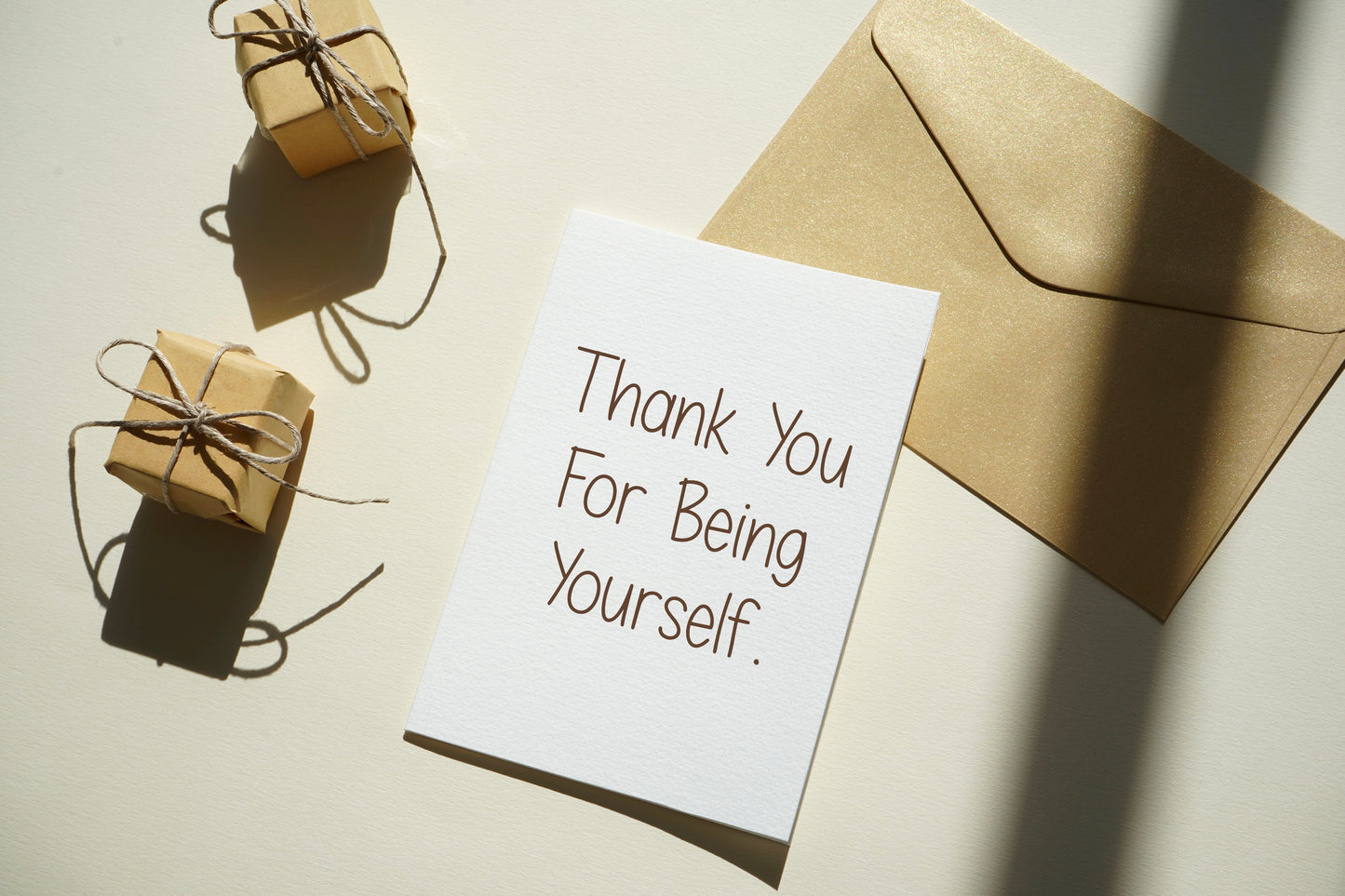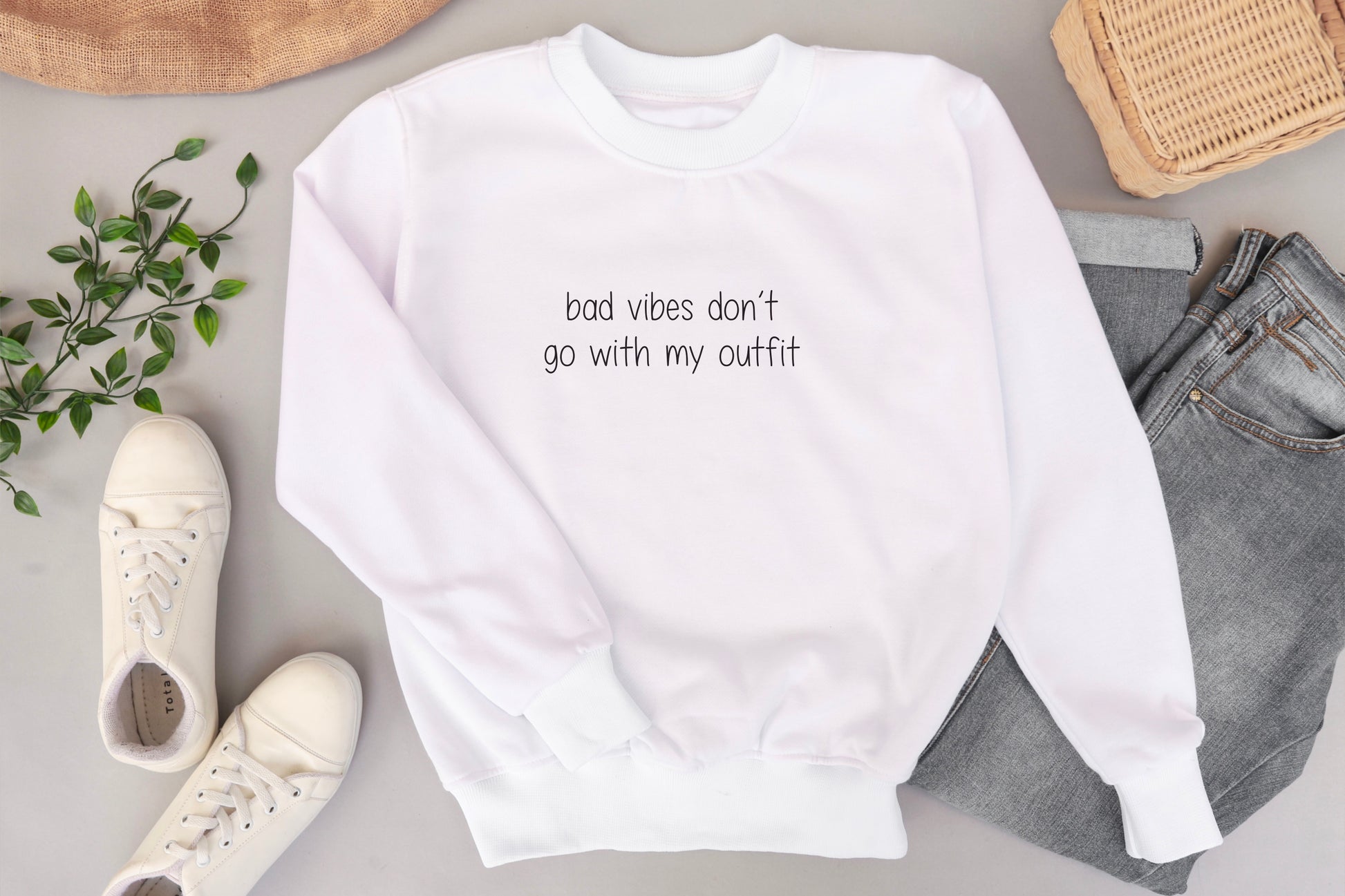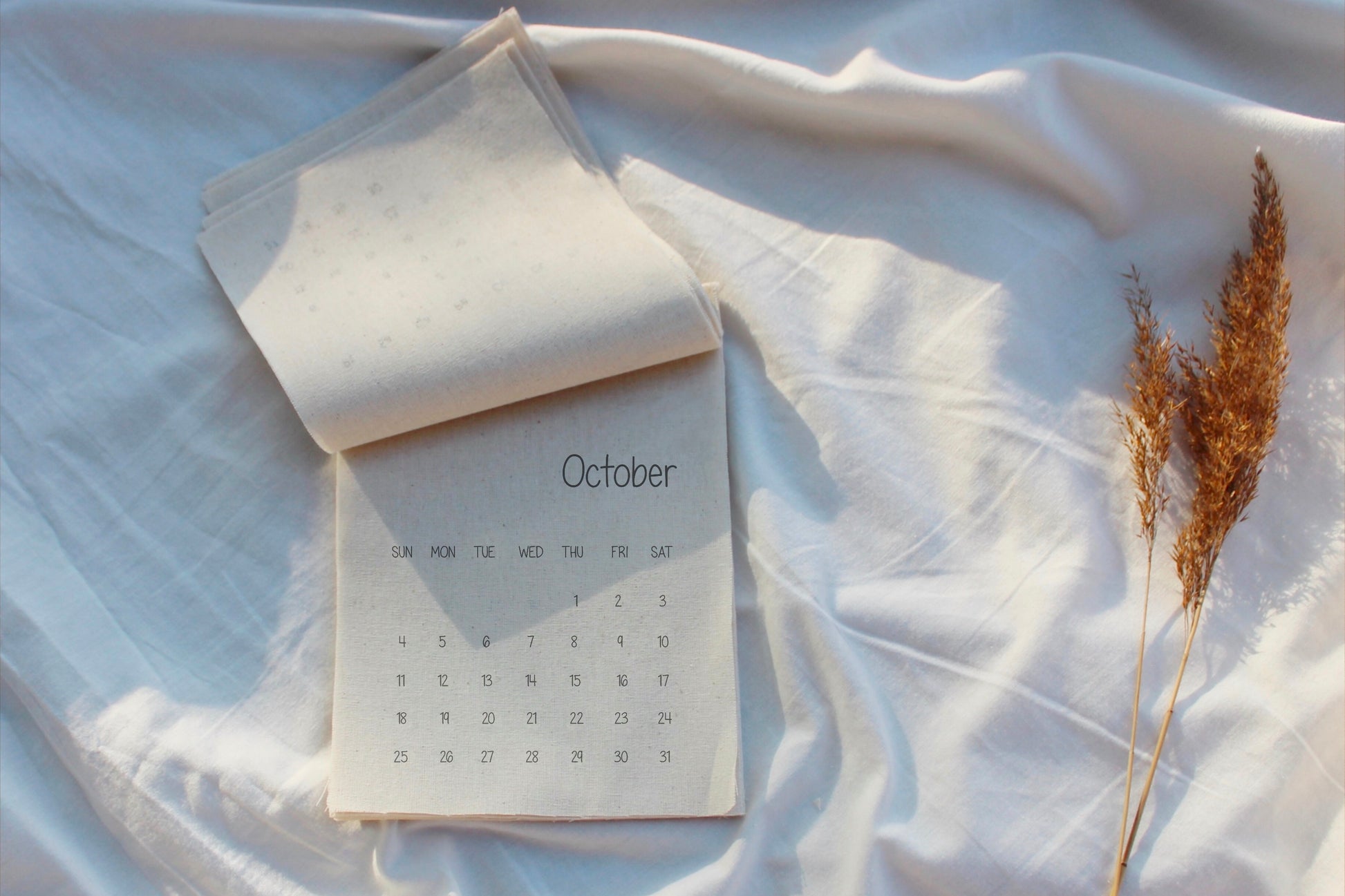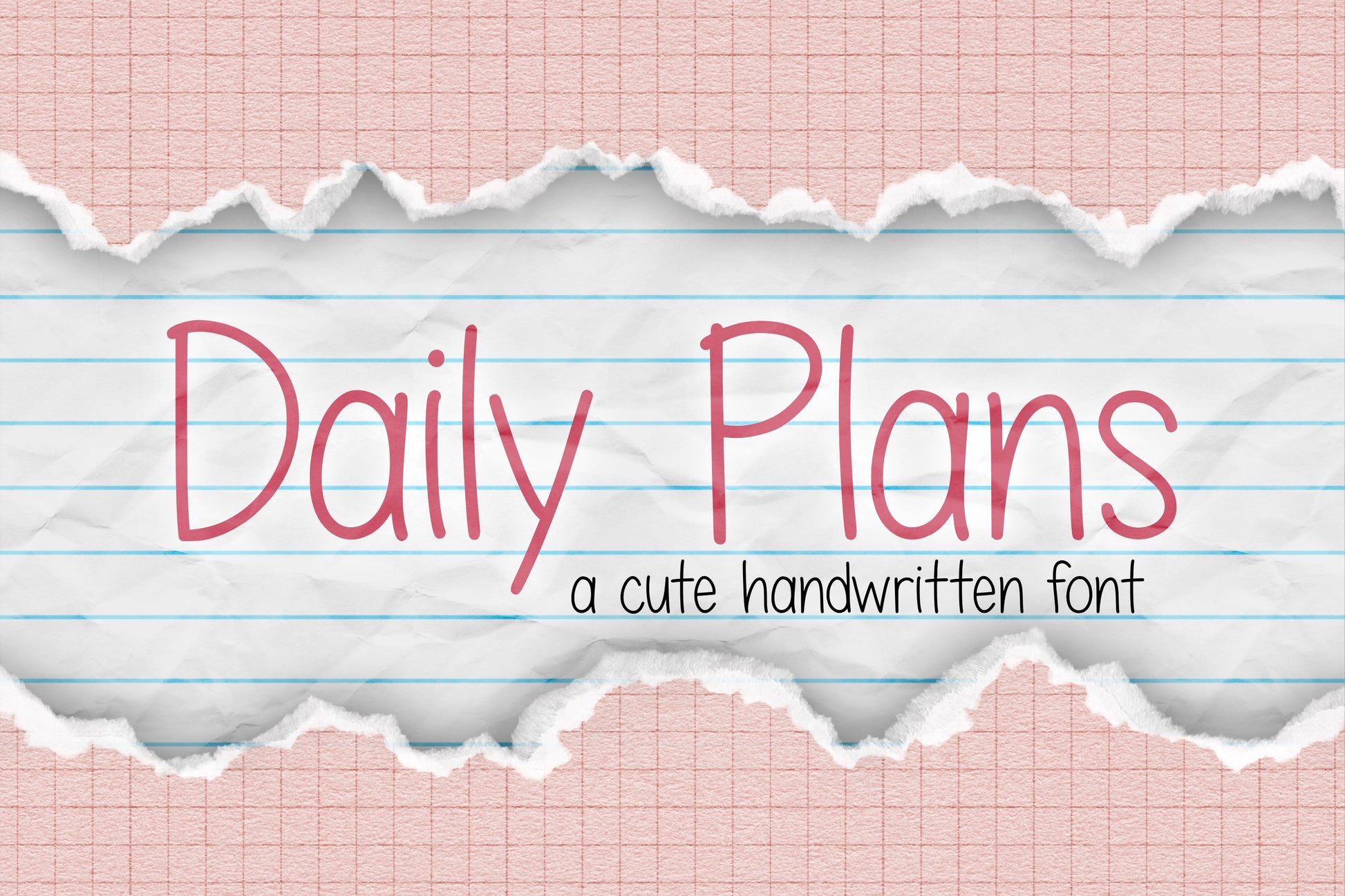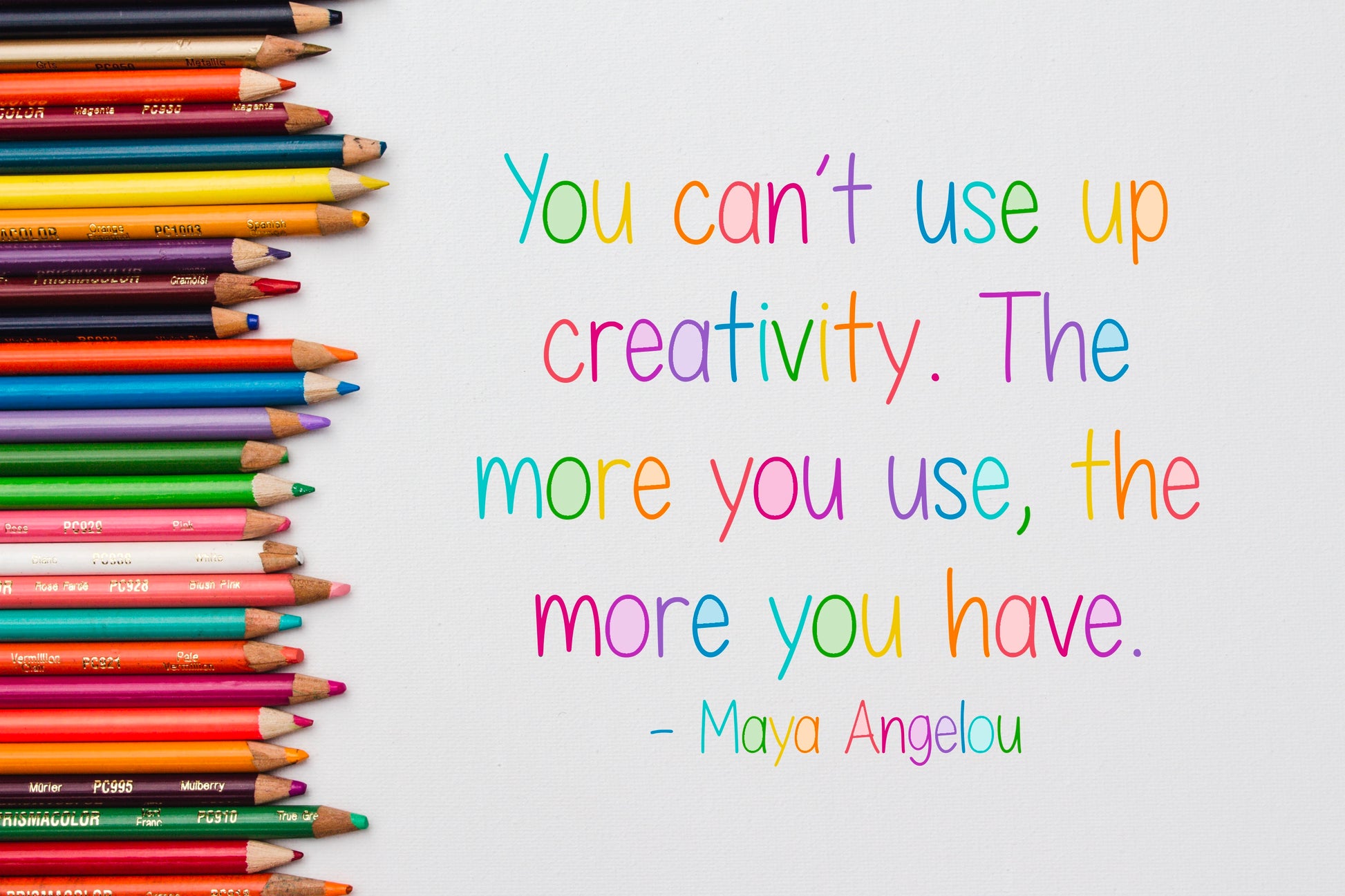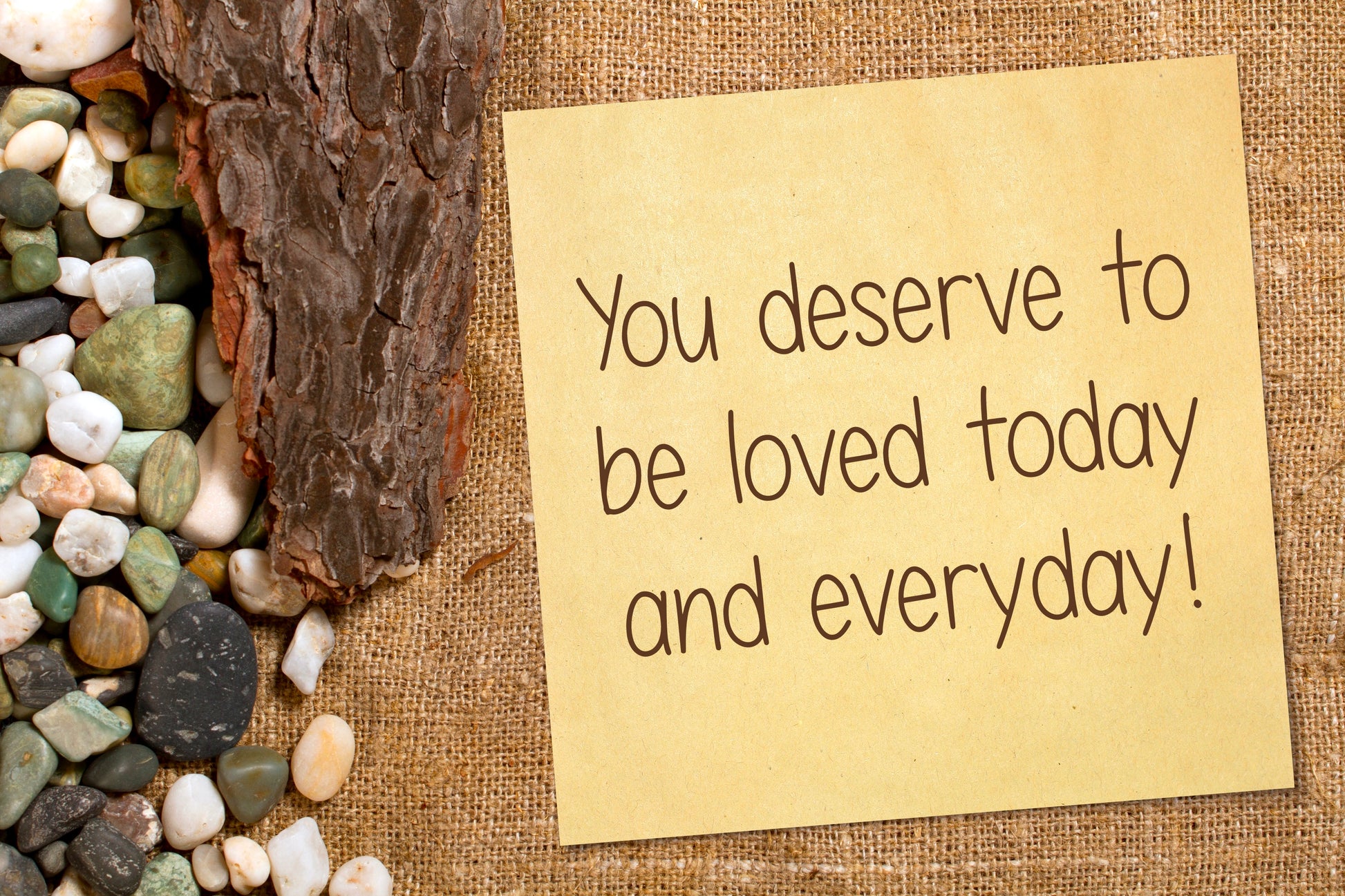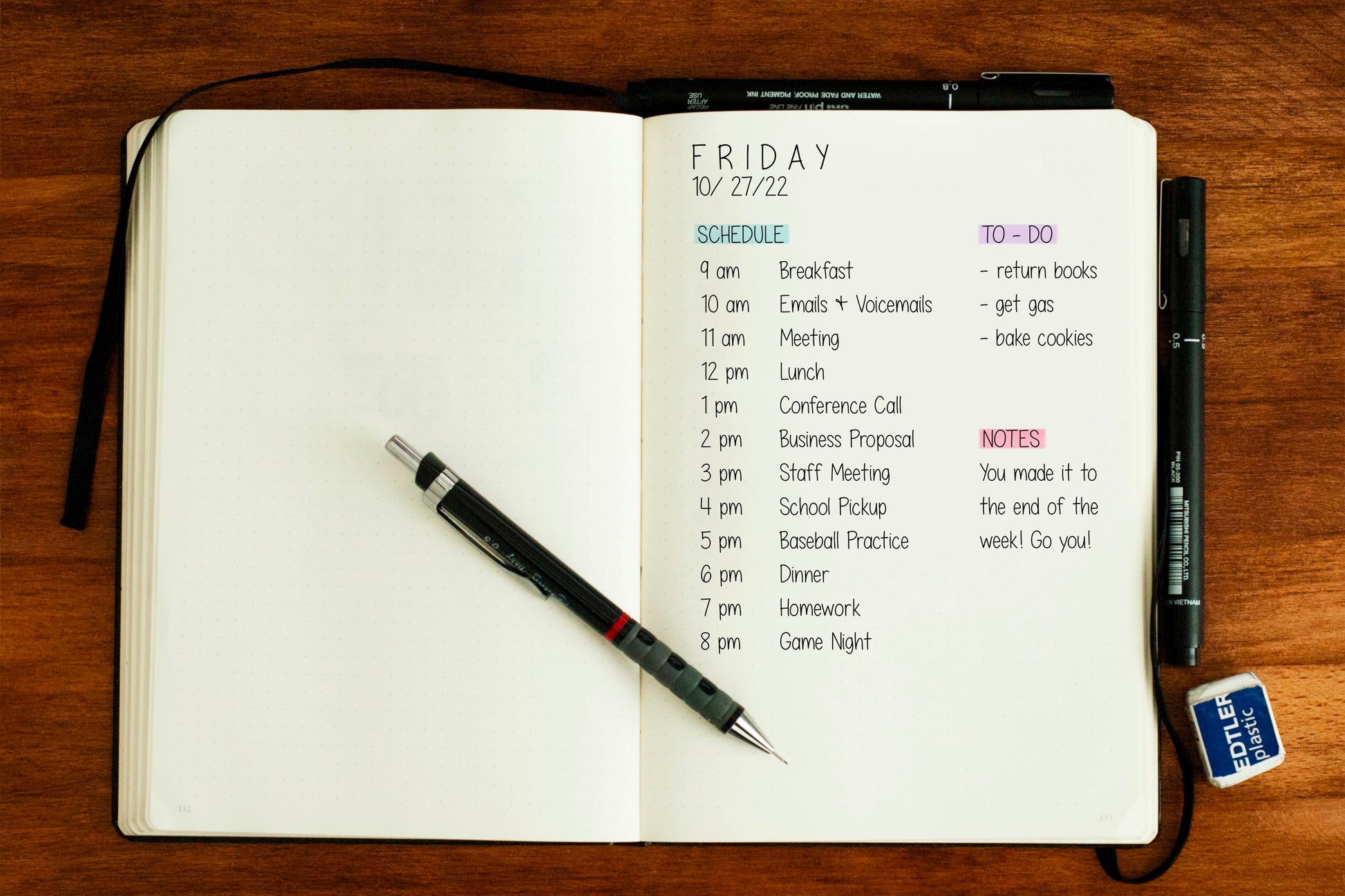
Daily Plans Handwritten Font
This is the Daily Plans handwritten/hand drawn font. This natural, organic font will add a fun, happy, handmade touch to your design! This versatile font is great for playful and casual designs, logos, posters, notes, etc.